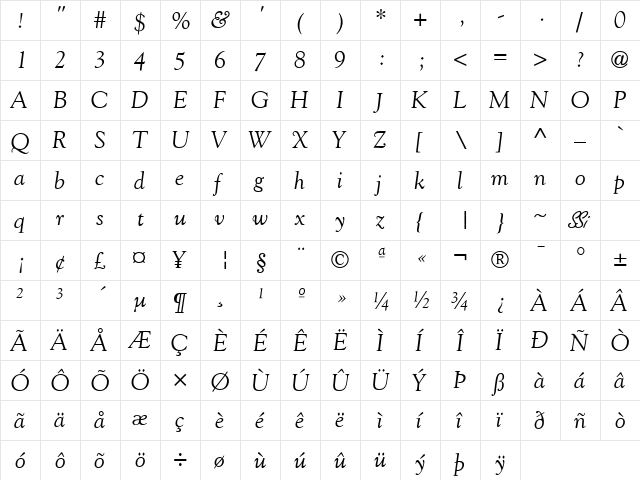
Goudy SSi Italic
Design Context for Goudy SSi Typeface
Goudy SSi takes a measured approach to typography — its balanced proportions and neutral character make it a reliable workhorse for both digital and print work. The dynamic lean of this cut emphasises speed and emphasis in any layout.
Pro Tip: Use Goudy SSi for emphasis, pull quotes, and subheadings where its slanted energy can add rhythm to the layout.